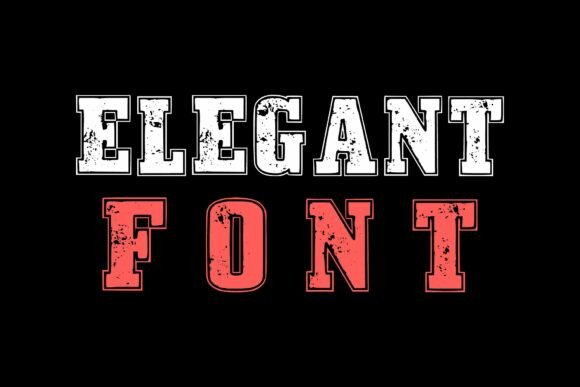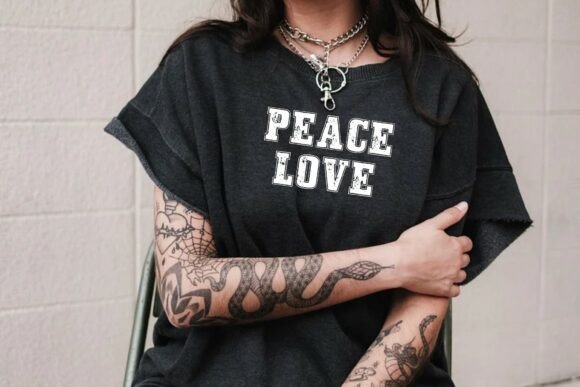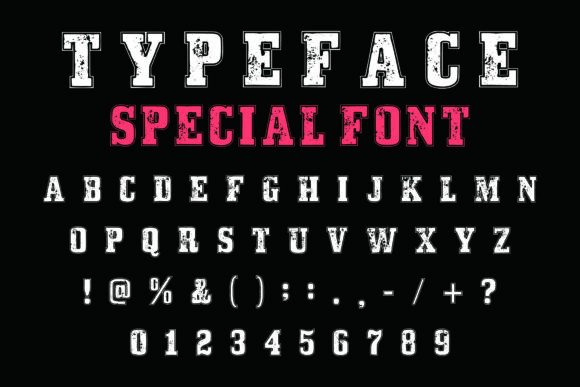
Bringing Tactile Authenticity to Your Designs with Campus Stamp Font
In the world of digital design, it’s easy to get lost in a sea of sleek, modern typography. But sometimes, you want to add a touch of raw, tactile authenticity to your projects. That’s where the Campus Stamp font comes in – a rugged, grunge-inspired typeface that’s perfect for creating distressed academic looks, vintage sports apparel, and artisanal branding with a handmade aesthetic.
The Look and Feel of a Physical Ink Stamp
The Campus Stamp font is designed to mimic the look and feel of a physical ink stamp. Its weathered edges and internal “ink” imperfections give it a unique, organic personality that’s hard to replicate with traditional typography. When used in headlines or merchandise, the Campus Stamp font adds immediate depth and character, evoking the feeling of a hand-stamped logo or a vintage school spirit poster.
Perfect for Distressed Academic Looks and Vintage Sports Apparel
The Campus Stamp font is a natural fit for creating distressed academic looks, such as those used in university marketing materials, student organization branding, or alumni publications. Its rugged, grunge-inspired aesthetic also makes it perfect for vintage sports apparel, like retro-style t-shirts, hoodies, or hats. Whether you’re designing for a school spirit store or a sports team, the Campus Stamp font is sure to bring a touch of authenticity and personality to your designs.
Artisanal Branding with a Handmade Aesthetic
In an era of mass-produced, cookie-cutter branding, the Campus Stamp font offers a refreshing alternative. Its handmade, artisanal aesthetic is perfect for brands that value uniqueness and individuality. Use the Campus Stamp font to create logos, packaging, or marketing materials that feel truly one-of-a-kind. Whether you’re a small business owner, a crafty entrepreneur, or a designer looking to add some personality to your work, the Campus Stamp font is a great choice.
Pairing the Campus Stamp Font with Clean, Modern Backgrounds
One of the most effective ways to use the Campus Stamp font is to pair it with clean, modern backgrounds. This contrast between the rugged, grunge-inspired typography and the sleek, contemporary design creates a visually appealing tension that draws the viewer’s eye. Try pairing the Campus Stamp font with a simple white or light-colored background to let its gritty personality pop.
Leaning into the Retro School-Spirit Vibe
Alternatively, you can lean into the retro school-spirit vibe by combining the Campus Stamp font with collegiate colors and varsity-style graphics. This approach is perfect for creating vintage-style sports apparel, school spirit posters, or marketing materials that evoke a sense of nostalgia and tradition. Use the Campus Stamp font in conjunction with classic school colors, stripes, or other graphics to create a cohesive, retro-inspired look that’s sure to resonate with your audience.
Tips for Using the Campus Stamp Font
- Use the Campus Stamp font to add a touch of raw, tactile authenticity to your designs.
- Pair the Campus Stamp font with clean, modern backgrounds to create a visually appealing contrast.
- Experiment with different colors and textures to enhance the font’s rugged, grunge-inspired aesthetic.
- Consider combining the Campus Stamp font with collegiate colors and varsity-style graphics to create a retro school-spirit vibe.
- Don’t be afraid to get creative and push the boundaries of what’s possible with the Campus Stamp font.
The Campus Stamp font is a versatile, rugged typeface that’s perfect for designers and crafters looking to add a touch of raw, tactile authenticity to their projects. With its weathered edges, internal “ink” imperfections, and handmade aesthetic, the Campus Stamp font is sure to bring depth, character, and personality to your designs. Whether you’re creating distressed academic looks, vintage sports apparel, or artisanal branding, the Campus Stamp font is a great choice. So why wait? Download the Campus Stamp font today and start bringing a touch of authenticity to your designs!